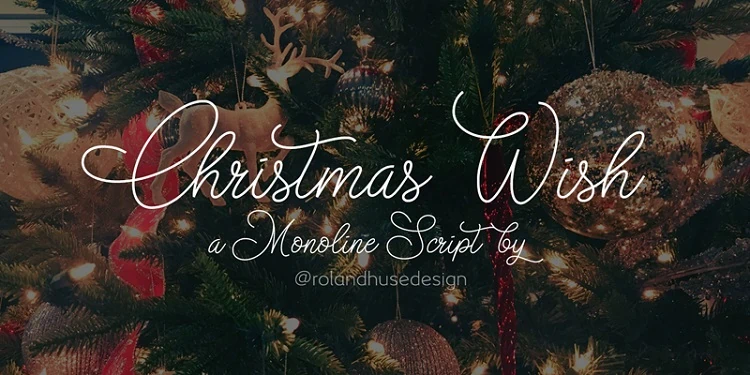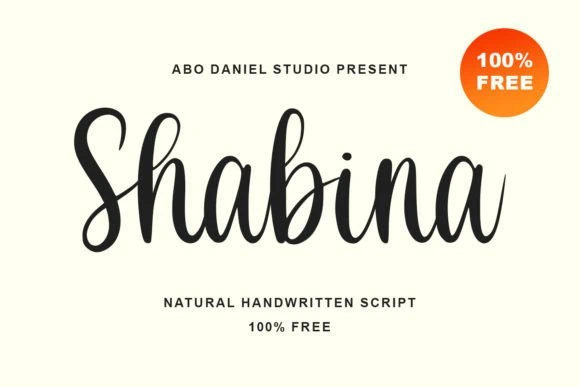
Are you looking for cursive calligraphy fonts? Here are the best free and premium cursive calligraphy fonts to create beautiful designs.
If you want to add a touch of elegance and style to your designs, look no further than cursive calligraphy fonts.
They come in various styles, from elegant to fancy, making them suitable for a wide range of projects such as wedding invitations, logos, branding, and posters.
Whether you are a designer, business owner, or someone looking to learn calligraphy, read on to learn more about the best cursive calligraphy fonts.
Best Cursive Calligraphy Fonts
I spent hours testing the fonts in this list in various design projects. So you can be sure youโll find the best cursive calligraphy font that suits your needs.
1. Daniela Script
Best Overall Cursive Calligraphy Font
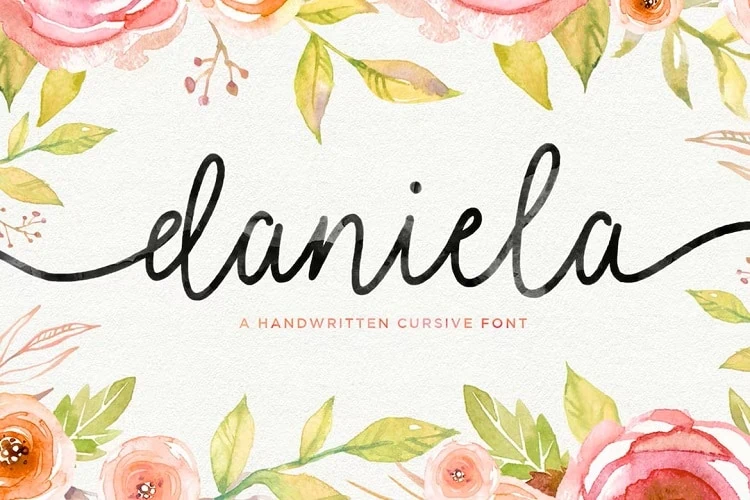
The Daniela Script font, with its elegant curves and beautiful swashes, is perfect for adding a unique touch to your calligraphy projects.
It features many beautiful glyphs and alternate characters, including ligatures and tails.
So if you are looking for a modern hand-lettered font with plenty of options to make truly unique designs, consider the Daniela Script font.
2. Lauren Hansley
Best Modern Cursive Calligraphy Font
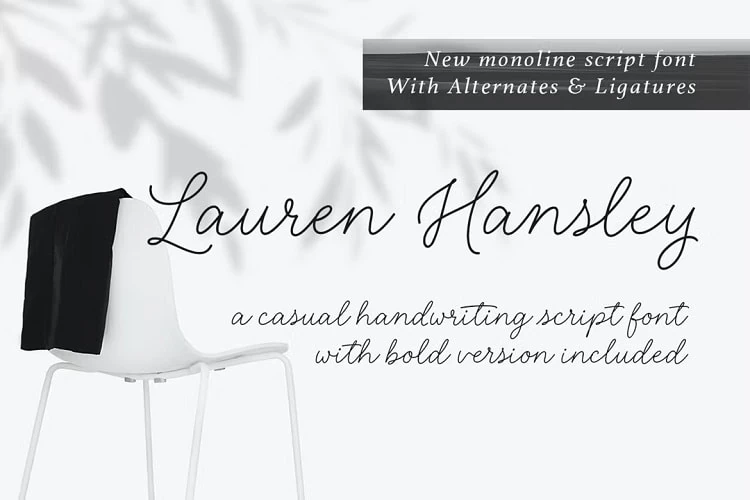
Want to create designs with a casual handwritten feel? Then the Lauren Hansley font is one of the best cursive fonts to consider.
This stylish font is excellent for creating everything from logos and branding to posters and invitations. The ligatures and alternates included in the font are guaranteed to elevate your designs.
3. Amelia Script
Best Handwritten Cursive Calligraphy Font
Amelia Script is my favorite font for creating typographic designs.
Since the font also has plenty of pretty nature-inspired ornaments, you can easily make vintage designs.
4. Katteris
Best Monoline Calligraphy Font
If you are looking for a bold font that is stylish and modern, look no further than Katteris.
The script font features smooth thick letters, stylish ligatures, and fun alternate characters. Itโs perfect for making logos and branding materials for your website or business.
5. Fairwater Collection
Best Cursive Calligraphy Font Bundle
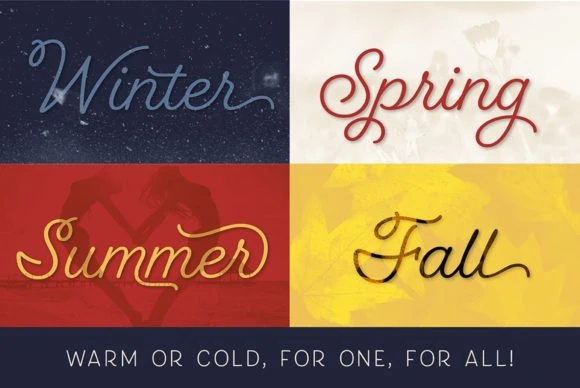
The Fairwater Font Collection is a complete design kit with jaw-dropping special features like swashes and stylistic alternates.
Inspired by the handwriting styles of the 1900s and maritime themes, typeface designer Laura Worthington has created a powerful font collection guaranteed to elevate your designs.
6. Burnt Rose
Best Casual Cursive Font
Adding a modern touch to your projects is a breeze with the Burnt Rose font.
The font features elegant strokes and stylish curves, making it a versatile option for many projects, such as logo design, social media posts, packaging, and website design.
7. Angello
Best Stylish Cursive Calligraphy Font
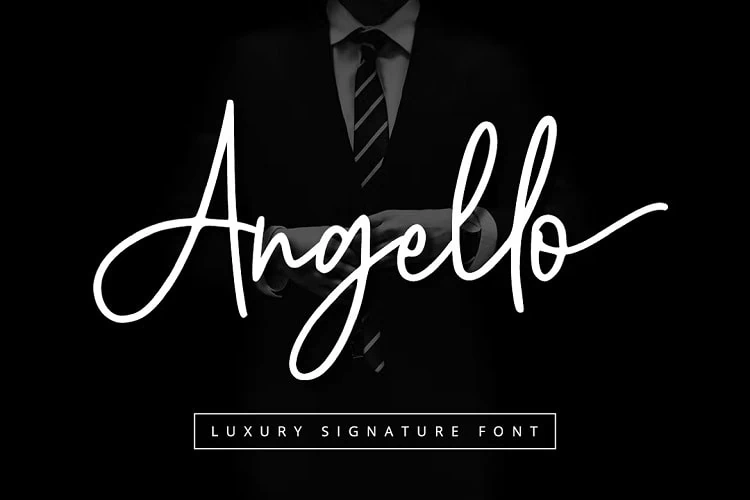
If you are looking for a simplistic yet elegant font, then the Angello font is a must-download.
The signature typeface is perfect for making designs for your social media, websites, and branding projects.
8. Sofia Carolyn Script
Best Script Calligraphy Font
Sofia Carolyn is a smooth brush font with a uniform thickness thatโll give your design projects a stylish touch.
This versatile font is perfect for creating clean yet modern designs. Whether you are designing quotes, logos, or branding materials, the Sofia Carolyn font is a great option.
9. Honeyloops
Best Cursive Font for Logos
With a monoline stroke width and a fun personality, the Honeyloops font is great for your creative projects.
You can pair this cursive calligraphy font with a minimal serif or sans serif font and create everything from logos to designs for paper goods.
10. Sheila
Best Vintage Script Calligraphy Font
Add vintage flair to any design project with the beautiful Sheila collection of cursive fonts.
The font looks like it was written with a ballpoint pen. It includes plenty of alternates and ligatures to style the words in your own way.
Whether you want to learn calligraphy or make designs for your brand, the Sheila font is an amazing choice.
11. Honeydew Script
Best Cursive Calligraphy Font for Weddings
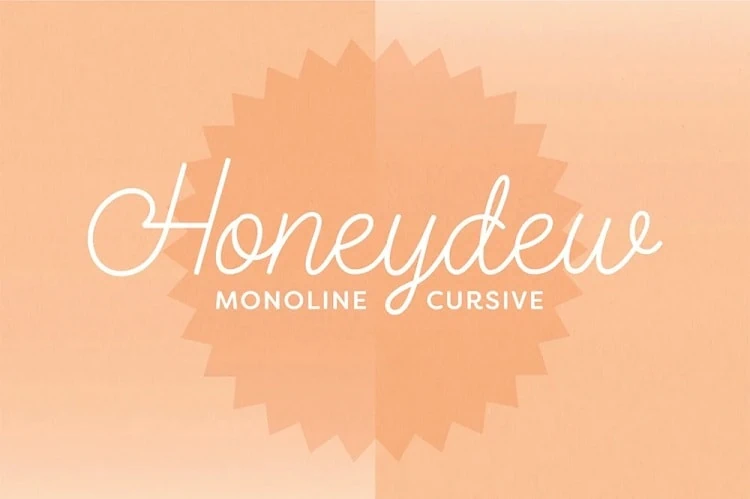
The Honeydew script font is perfect for adding a touch of whimsy to your design projects.
Itโs a twist on the classic schoolhouse cursive, making it a great typeface for wedding invitations, posters, brochures, and more.
12. Archangel Monoline Script
Best Monoline Cursive Font for Quotes
If you are looking for a versatile cursive font thatโll fit the bill for both digital and physical product designs, consider the Archangel font.
A cursive calligraphy font is a style of font that looks like cursive handwriting. Since the purpose of cursive writing is to be quick and readable, the fonts feature connected letters and smooth strokes.
How to use cursive calligraphy fonts?
Due to the versatile nature of cursive, calligraphy fonts are used for designing everything from formal to creative projects. Here are the best ways to use them:
- Learn Calligraphy
- Create Wedding Invitations
- Make Logos & Brand Assets
- Posters & Brochure Design
- Social Media Posts